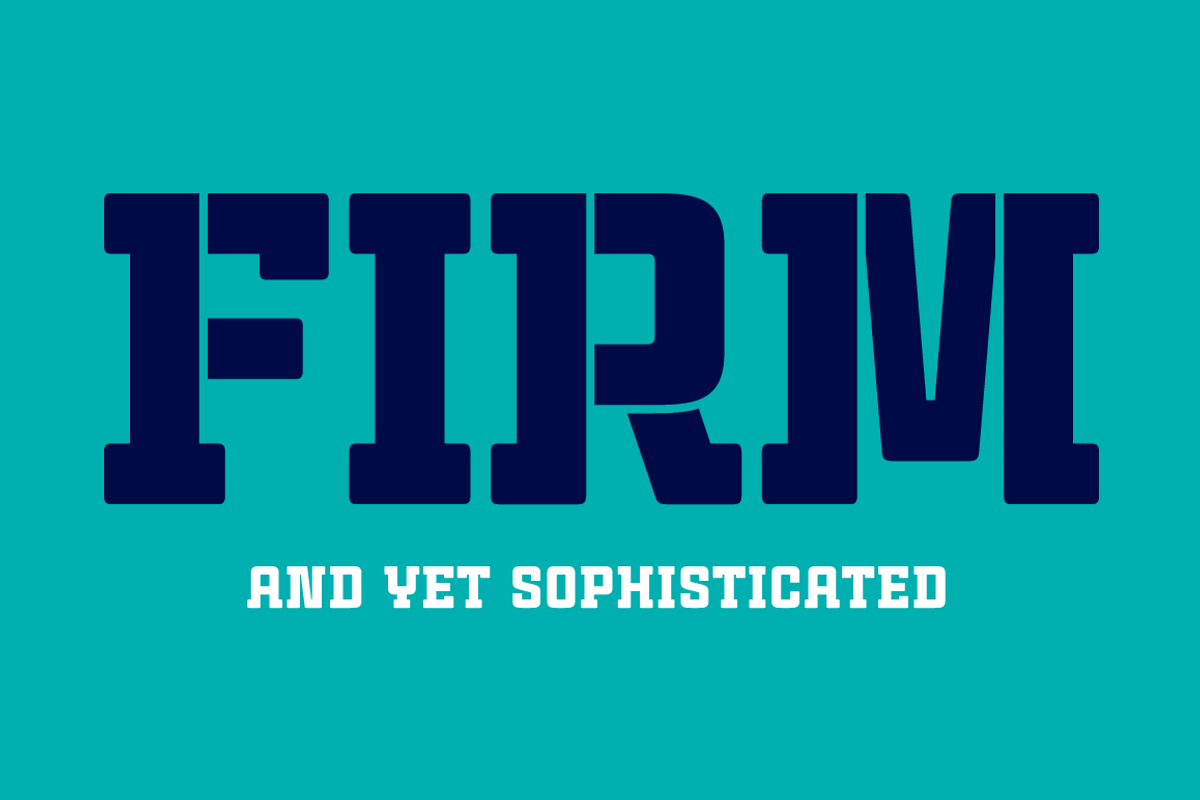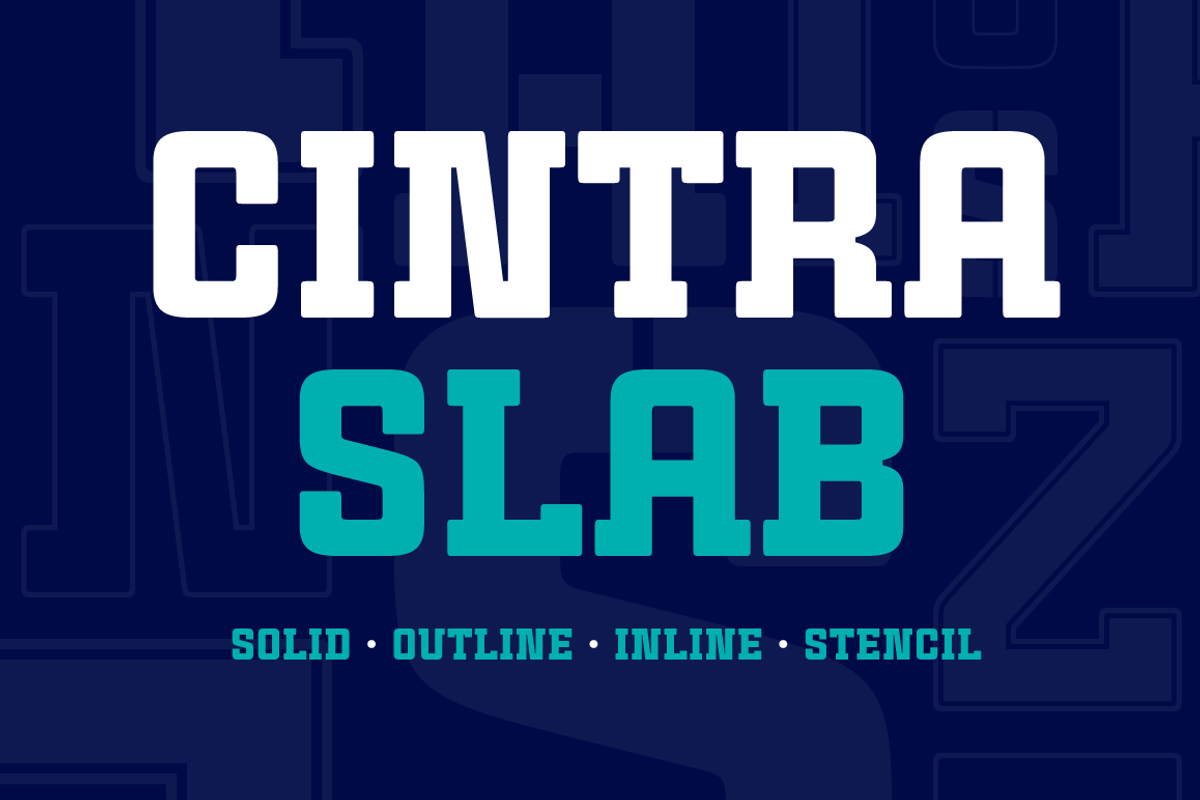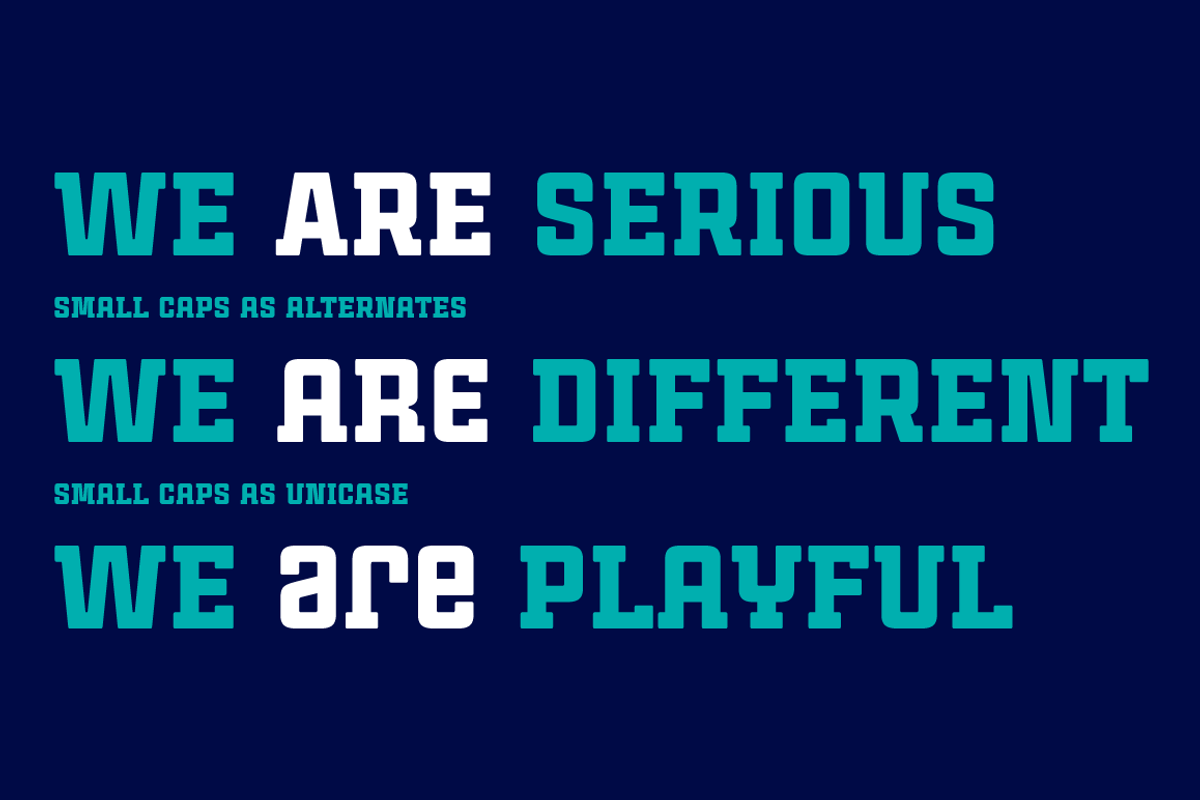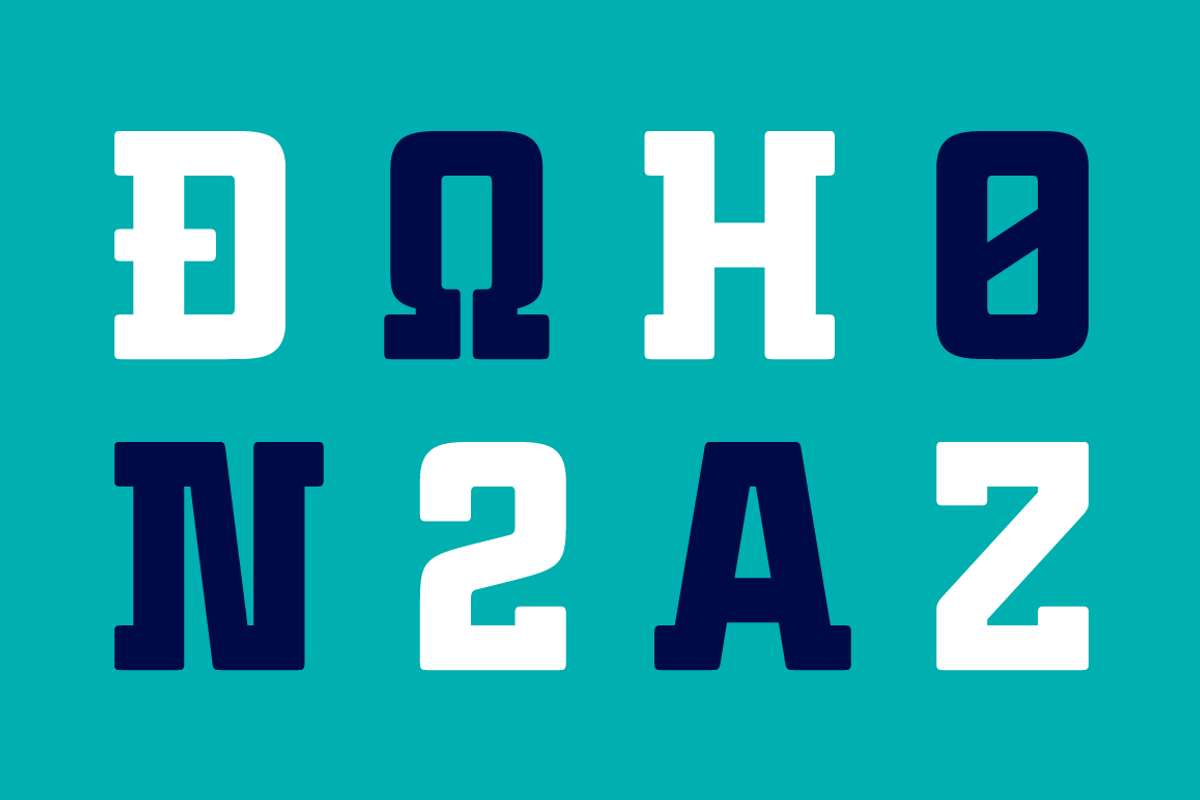
Cintra Slab Font Family
Designer: Pablo Balcells
Design date: 2014
Cintra Slab font family has been designed for Graviton Font Foundry by Pablo Balcells in 2014. It is a slab serif, bold, geometric typeface with subtle rounded angles, which provides a soft, pleasant appearance.
Cintra Slab consists of 8 styles.